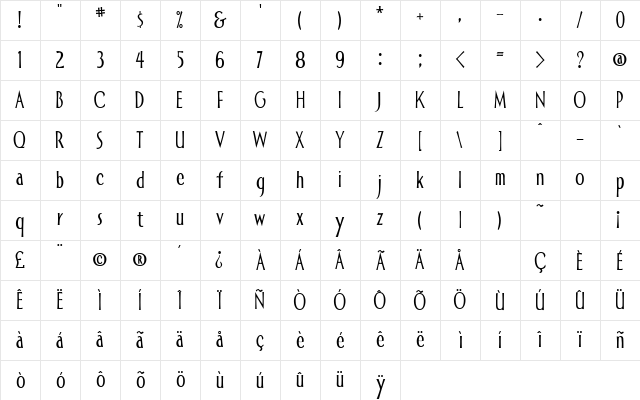
Allise Regular
Design Context for Allise
Allise is a composed and adaptable typeface that performs quietly and consistently across a wide range of design contexts.